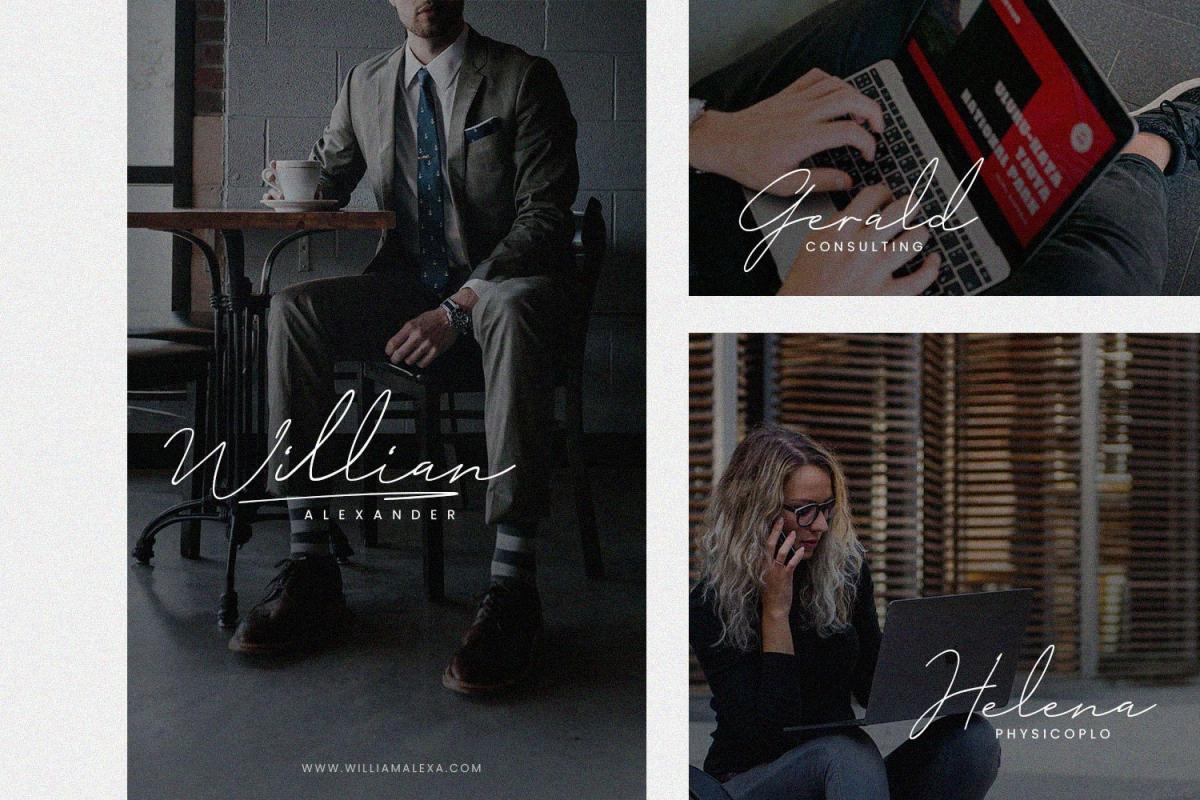
Milano Signature Script Font
Milano inspired from signature style with luxury vibes, this font suitable for your creative designs project. You can used such as flyer, business card, branding, product packaging, logotype and more, so you can explore this font from your creative idea.
• Uppercase
• Lowercase
• Number
• Punctuation
• Ligature
• Multilingual Language